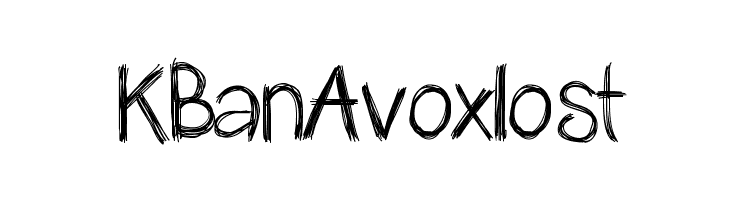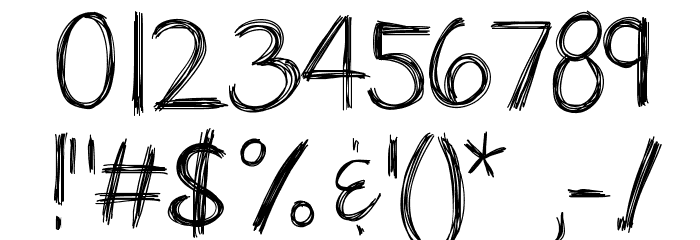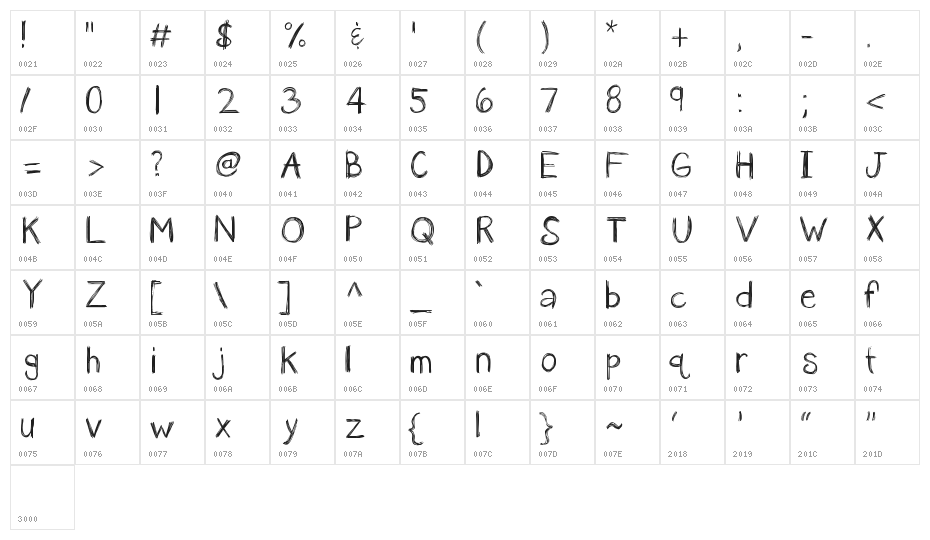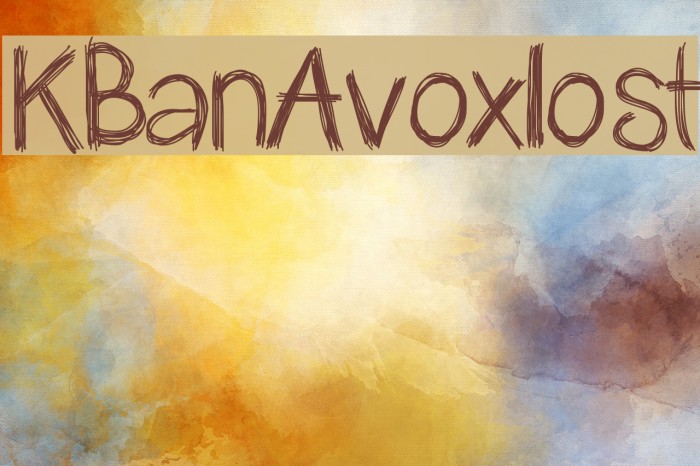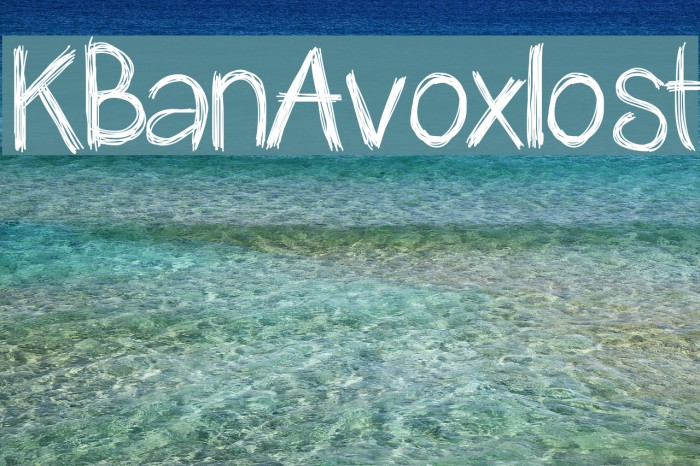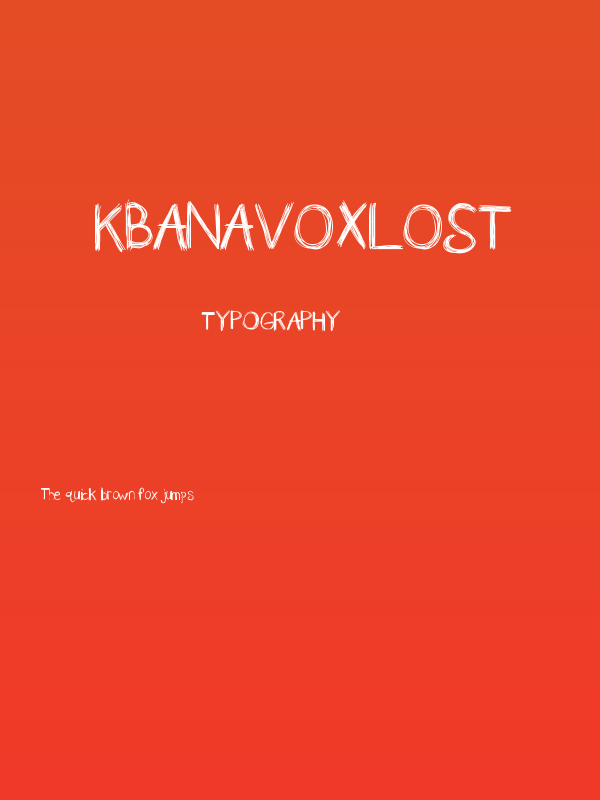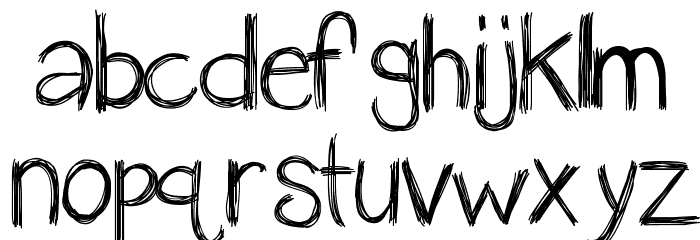
KBanAvoxlost Font
KBanAvoxlost Description
This font exhibits a unique, hand-drawn style characterized by its sketch-like appearance. The letters are formed with multiple overlapping strokes, giving them a textured and dynamic look. The uppercase and lowercase letters maintain a consistent style, with rounded edges and a playful, informal vibe. The numbers and special characters follow the same aesthetic, ensuring a cohesive appearance across all glyphs. The font's irregular line thickness and casual style make it stand out, offering a creative and artistic touch to any design.
| Use Case | Headlines, Logos, Artistic projects |
| Proposed Projects | Ideal for creative projects such as children's book illustrations, artistic posters, casual branding, and playful packaging designs. |